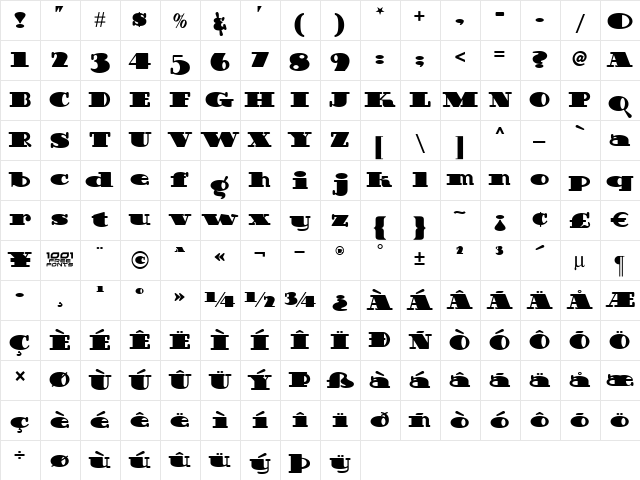
Guinness Extra Stout NF Regular
Guinness Extra Stout NF is a composed and adaptable typeface that performs quietly and consistently across a wide range of design contexts.